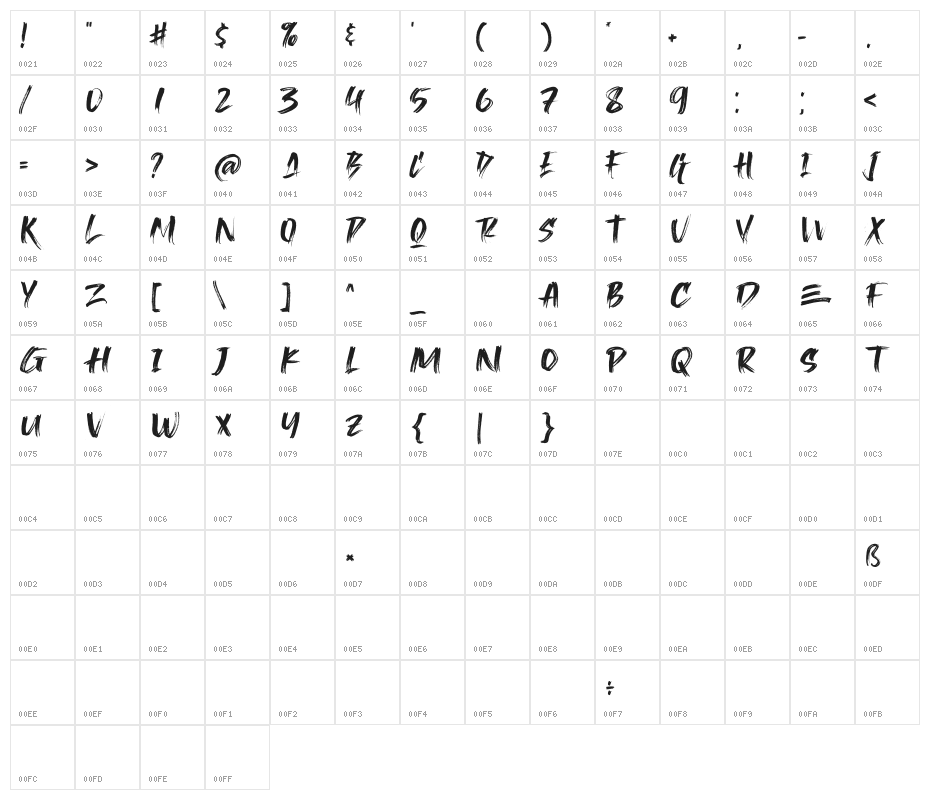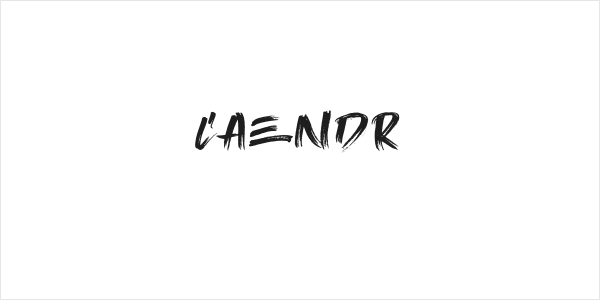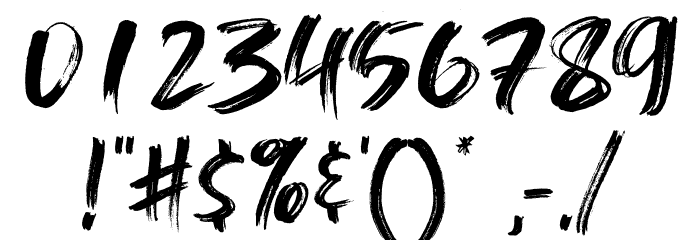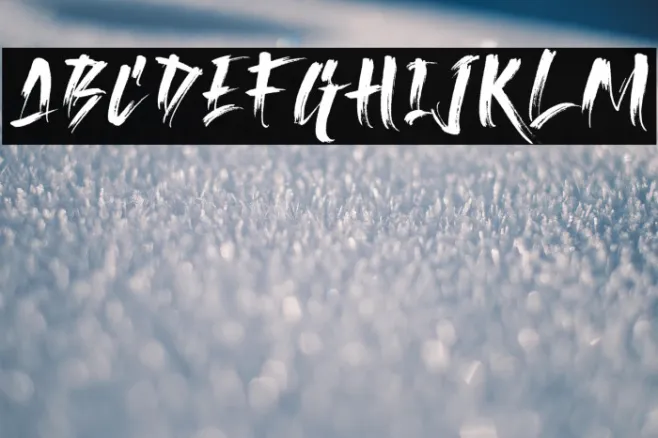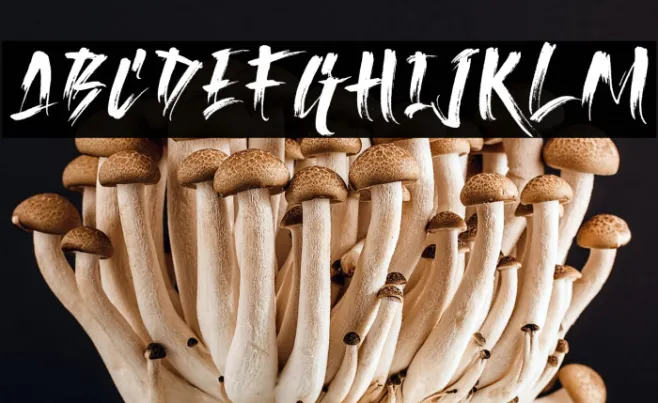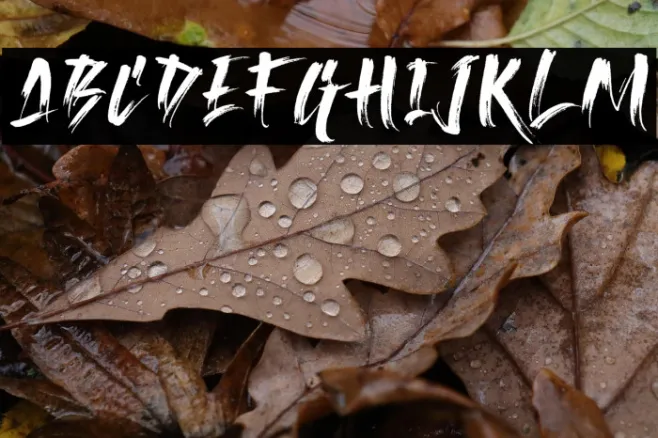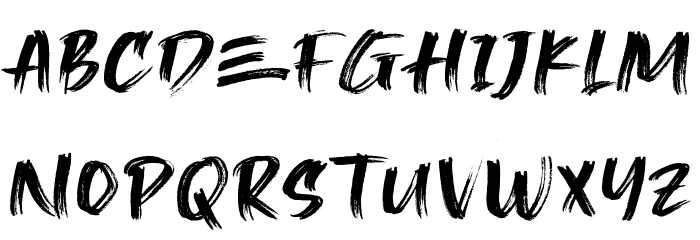
Caendr Font
Caendr Description
This font exhibits a bold and dynamic brush script style, characterized by its energetic strokes and expressive flair. The letters have a hand-painted appearance, with varying thicknesses that create a sense of movement and vitality. The uppercase and lowercase letters maintain a consistent style, with sharp angles and fluid curves that enhance its artistic appeal. The numbers and special characters are equally expressive, making them suitable for creative and impactful designs. This font's unique style is perfect for projects that require a personal touch or a bold statement.
| Proposed Projects | Ideal for branding, posters, album covers, and any design needing a bold, artistic touch. |